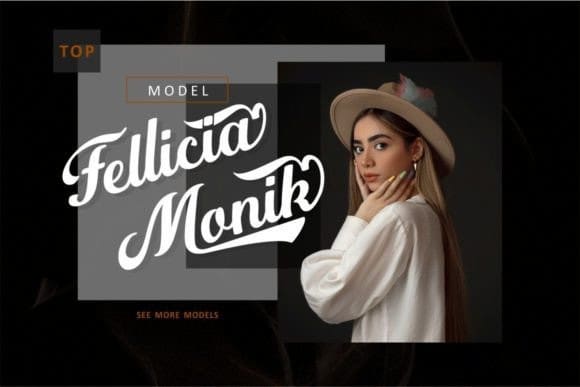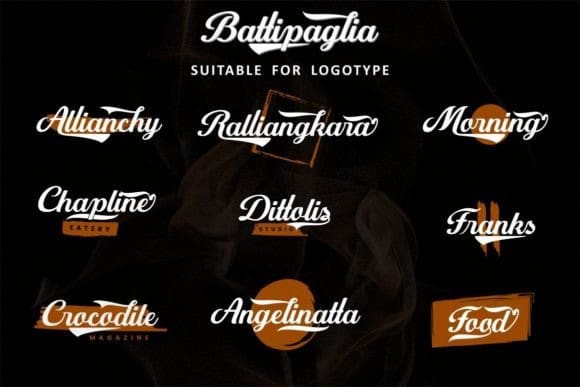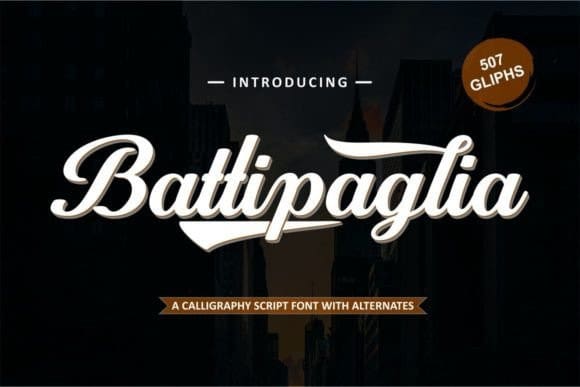
Battipaglia Font
Battipaglia Font is a stylish script font, that features a very elegant and classy look. Not too thin and not too thick, balanced and varied, this font was designed to enhance the beauty of your projects.